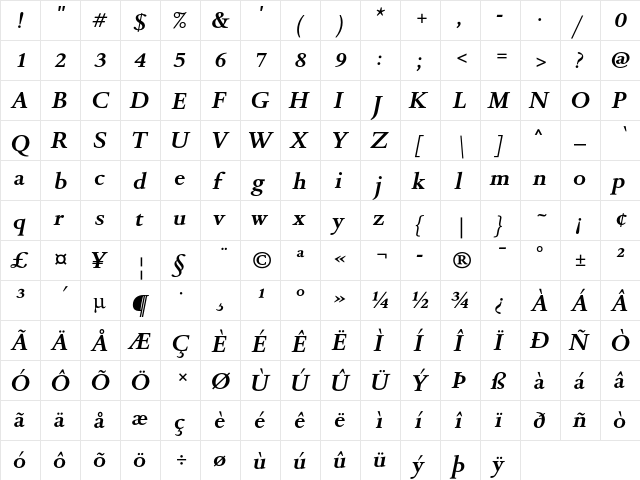
DTLRomulusT Regular Font Preview
DTLRomulusT Regular
Design Context for DTLRomulusT Typeface
DTLRomulusT offers clean, dependable letterforms without strong stylistic allegiance, making it a practical choice for designers who need flexibility.